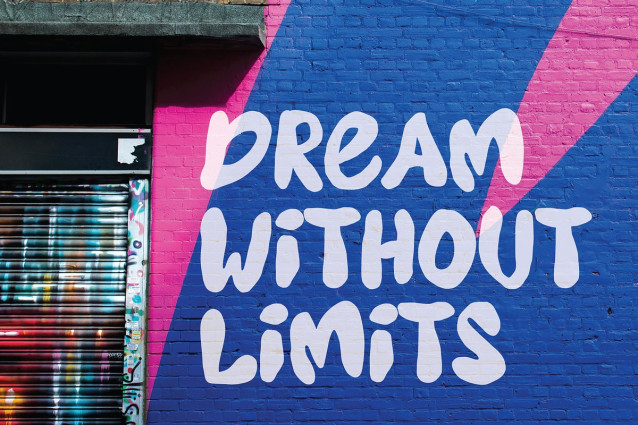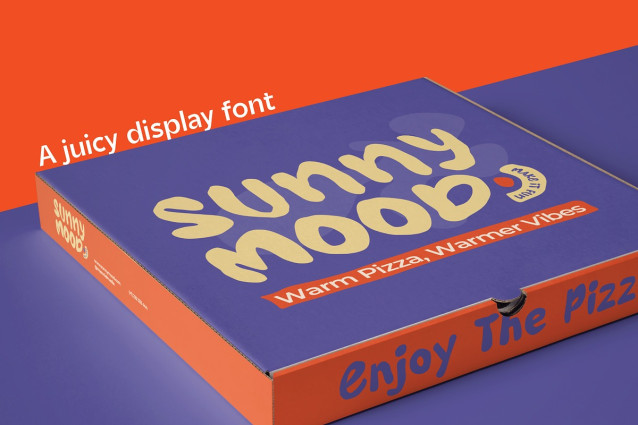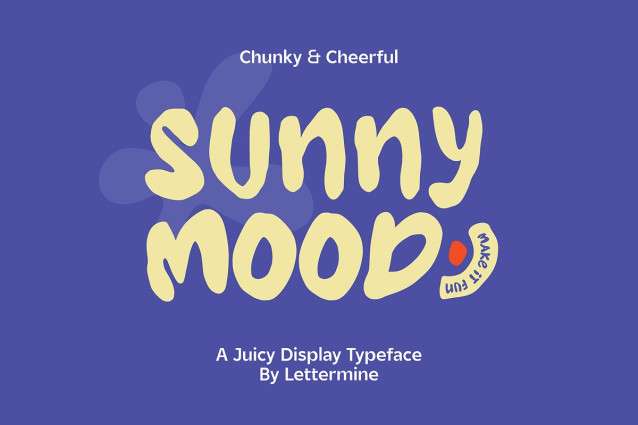
Sunny Mood Font
Sunny Mood Font is a chunky, juicy, and cheerful display font designed to brighten up your creative work. Its hand-crafted curves and bold personality are perfect for colorful posters, kids-themed branding, sticker design, fun quotes, and digital visuals that demand joyful attention.
With a smooth, soft texture and expressive shape, Sunny Mood is easy to love and easy to use. It includes ligatures, alternates, and multilingual support—and it’s fully PUA encoded, so you can access all characters from any design software, no extra tools needed.